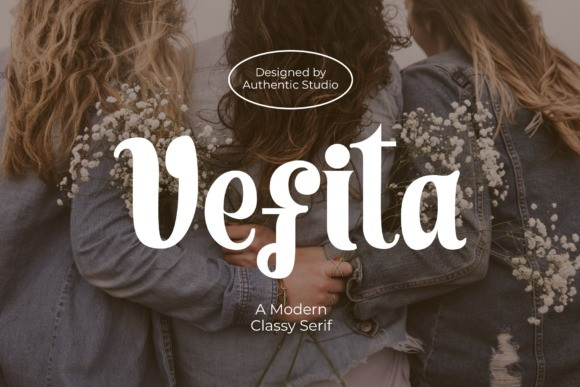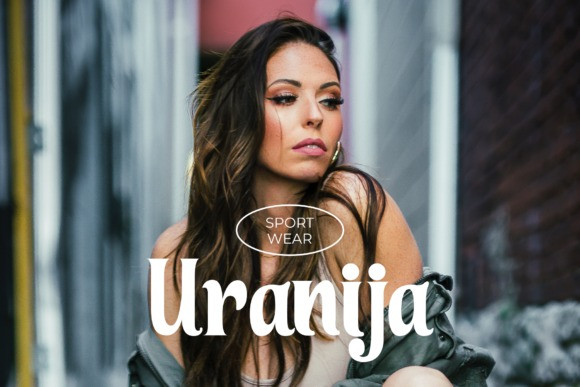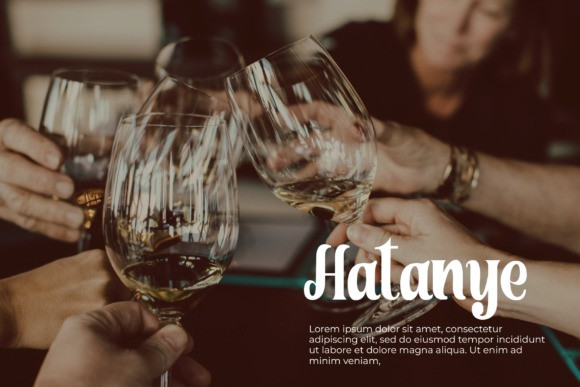
Vefita Font
Vefita is a modern, thick lettered and bold serif font. Add this font to your most creative ideas, and notice how it makes them stand out!